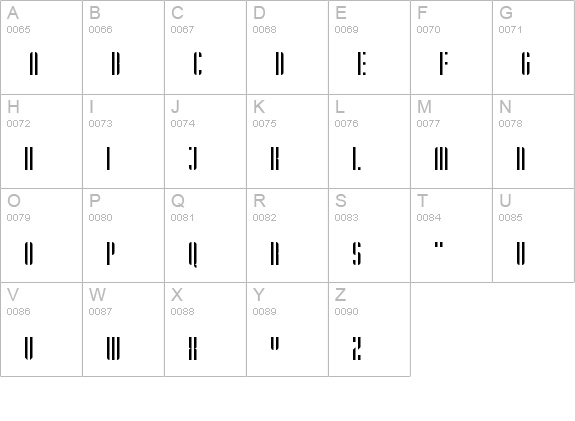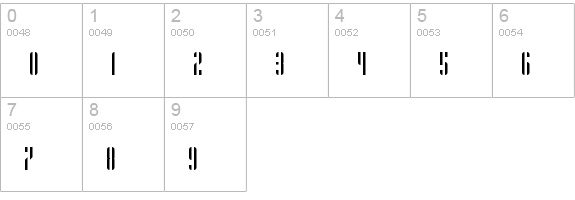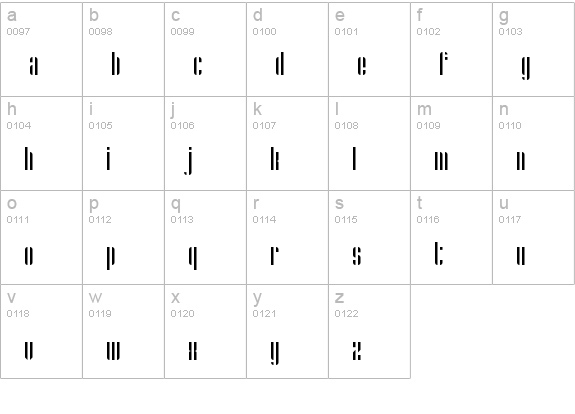
Stripes Regular Font Details
Stripes Regular is the standard, neutral variant in the Stripes typeface family \xE2\x80\x94 well suited to general body text, paragraphs, and standard typographic work.
Stripes Regular font is a unique and eye-catching typeface that will add a touch of modernity and flair to any design project. Its clean lines and bold strokes make it perfect for headlines, logos, posters, and more. Whether you're looking to create a striking visual identity or simply want to make a statement, Stripes Regular font is here to help. This font features a distinctive striped pattern that adds a sense of movement and dynamism to your designs. It is versatile and can be used in a variety of creative ways, from fashion and lifestyle branding to magazine layouts and social media graphics. The font's balanced letterforms and carefully crafted spacing ensure readability even at smaller sizes, making it suitable for both print and digital applications. What sets Stripes Regular font apart is that it is freely available to download at FontsMarket.com. This means that you can easily access and use it for personal and commercial projects without any restrictions. Whether you're a professional designer or a hobbyist, this font is a valuable addition to your typographic toolbox. With its bold and contemporary style, Stripes Regular font is sure to make a lasting impression. So why wait? Head over to FontsMarket.com and grab your free download today. Unleash your creativity and let this font elevate your designs to new heights.